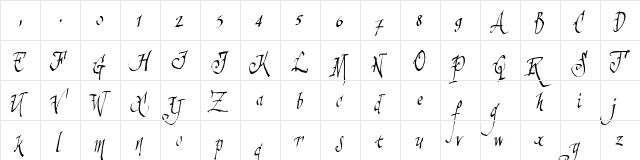
sinisterSam Regular
Design Context for sinisterSam Typeface
sinisterSam is a composed and adaptable typeface that performs quietly and consistently across a wide range of design contexts.